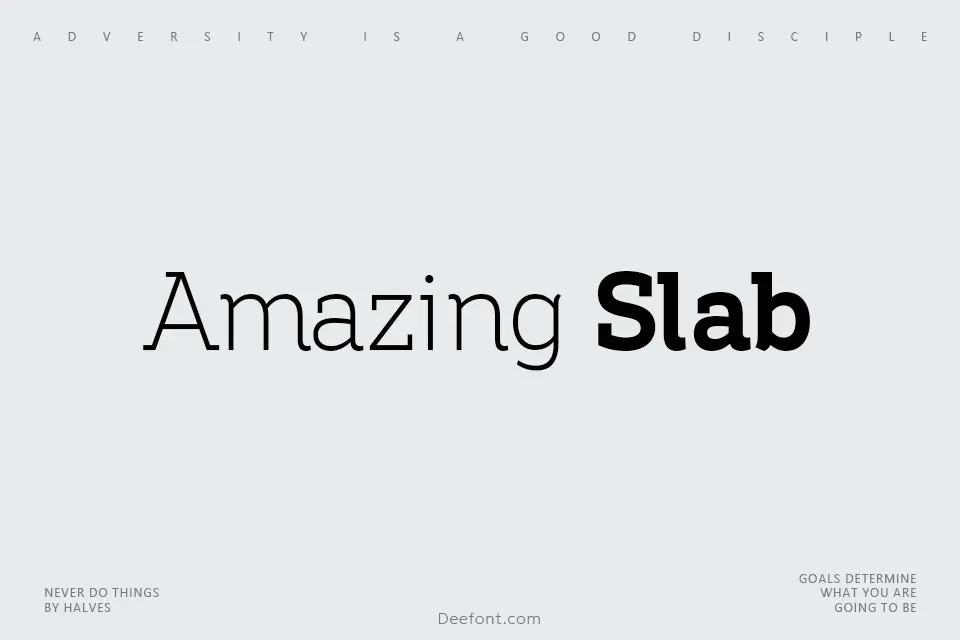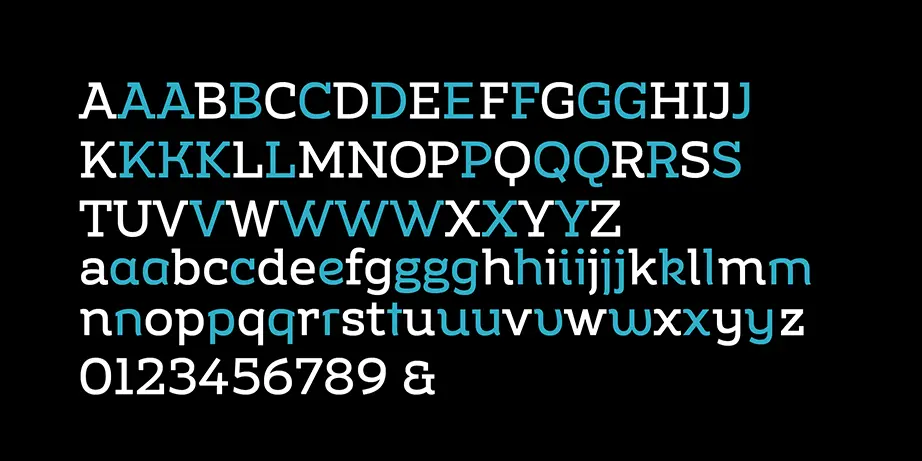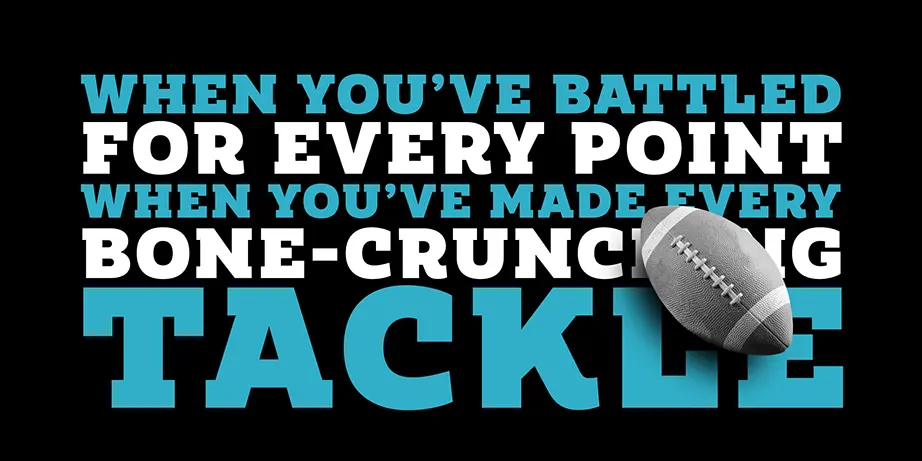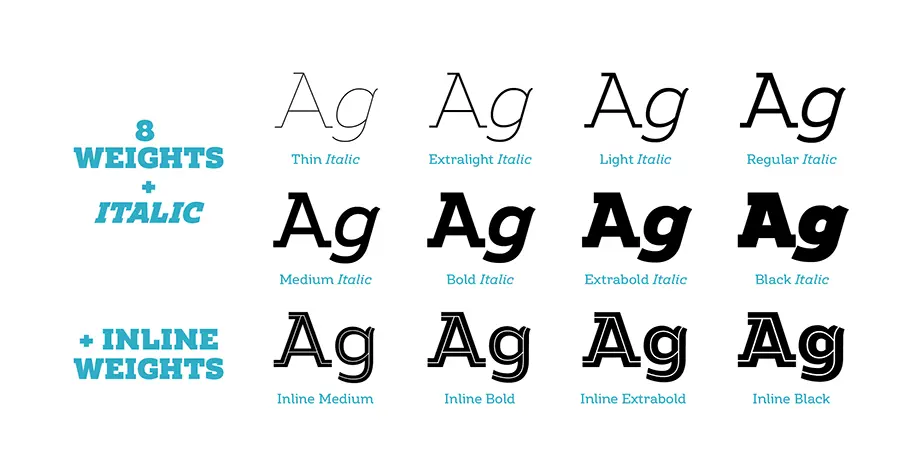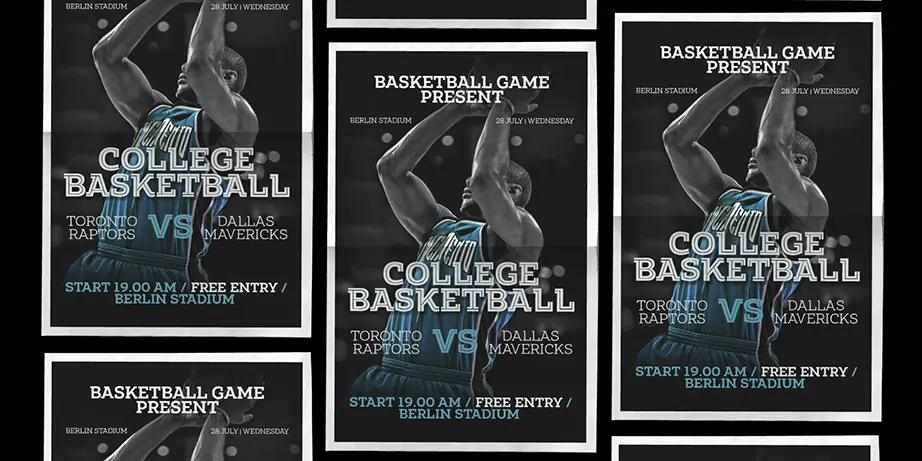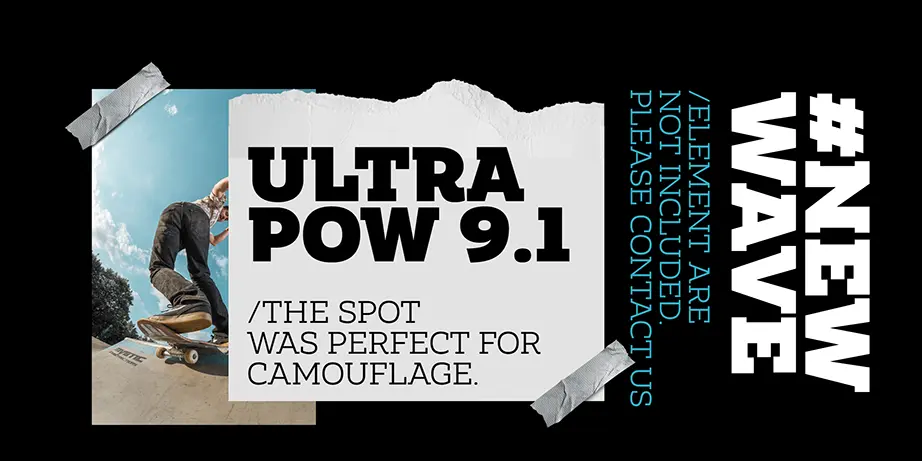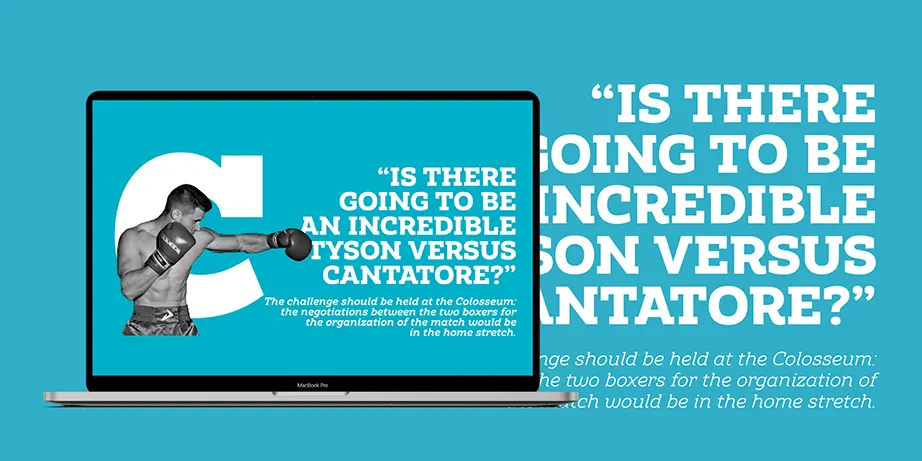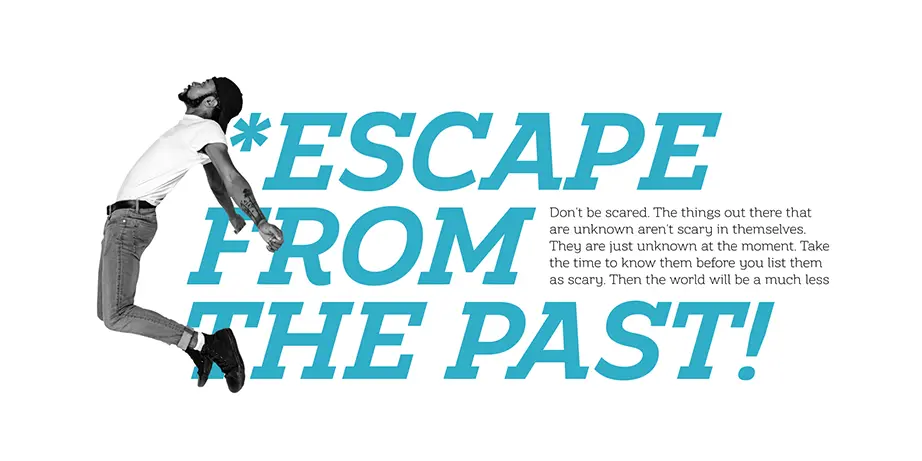
Amazing Slab Font Family
The Amazing Slab Font Family is an energetic and friendly slab serif typeface developed by Francesco Canovaro and Andrea Tartarelli for Zetafonts, based on the Amazing Grotesk legacy. It blends the bold simplicity of Egyptian slab serifs with curved, open humanist touches, making it especially suitable for startup brands, editorial headers, and logo design. This font features a wide range of weights, true italics, inline display variants, and a massive glyph coverage supporting 211 languages. With strong character, versatility, and an innovative spirit, Amazing Slab delivers clarity and warmth for both text and display needs.